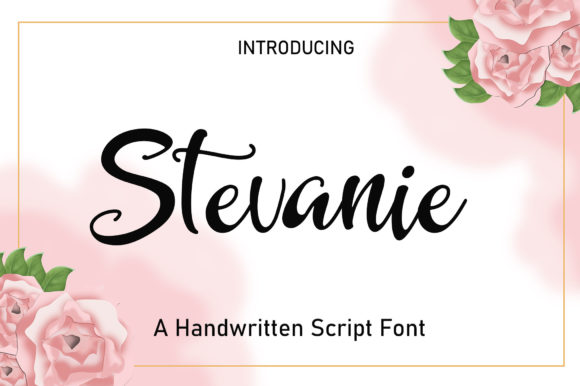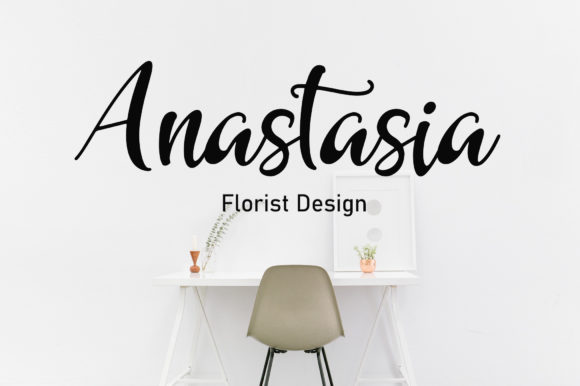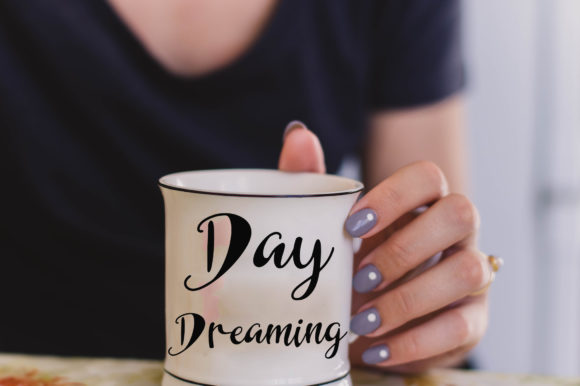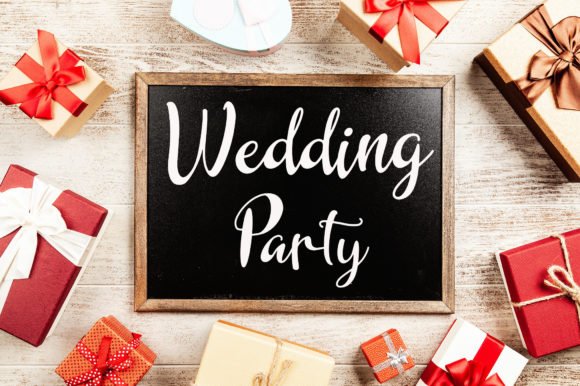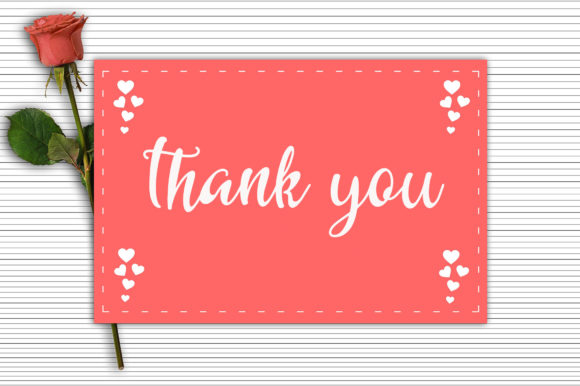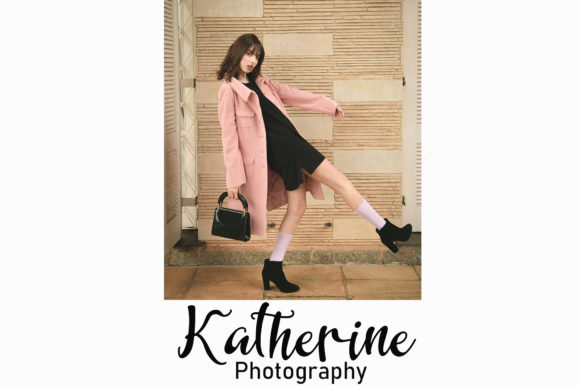
Stevanie Font
About Stevanie Font
Stevanie is romantic, cute, and bouncy script font with a chic touch. This font is so perfect to be used on various designs, such as wedding invitations, greeting cards, social media quotes, branding, logo, and many more.